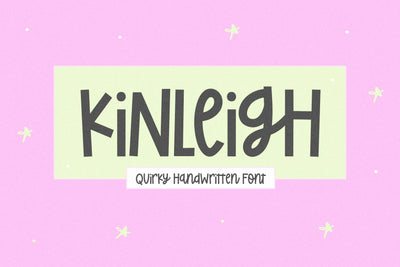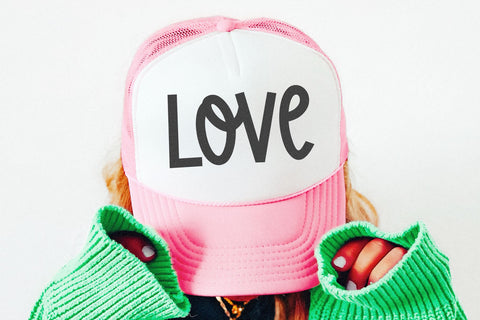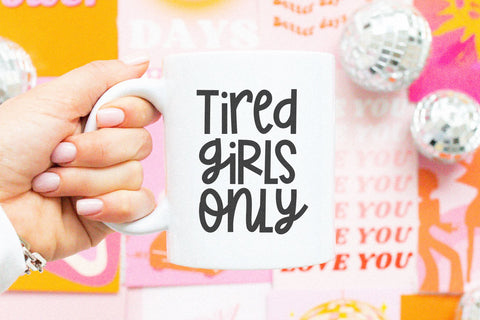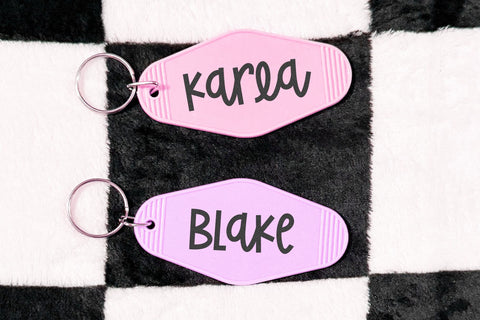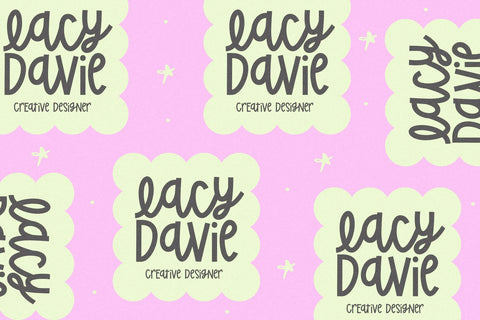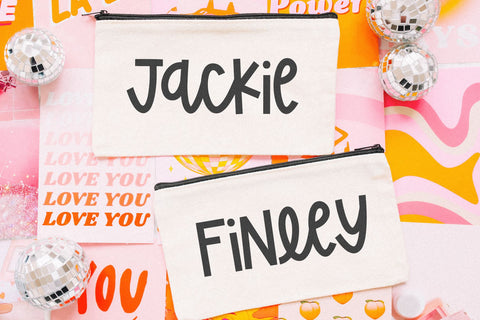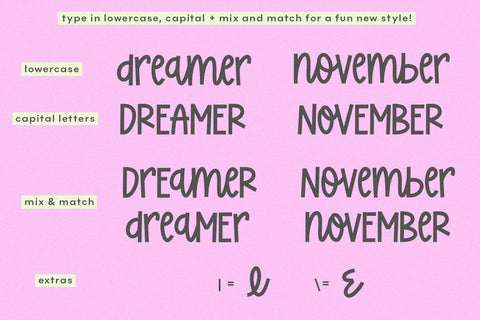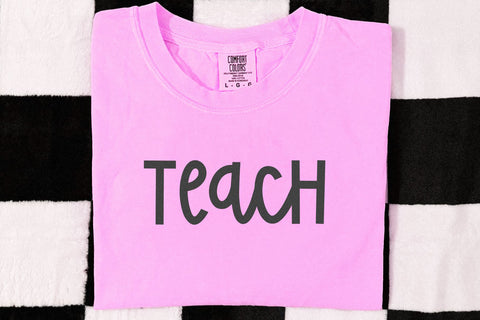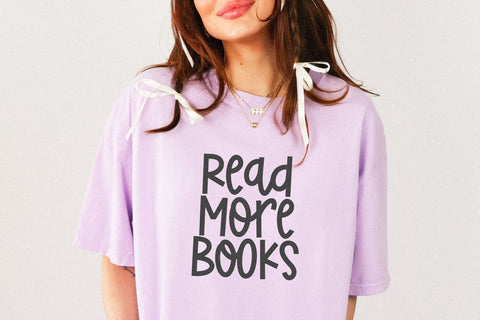
Kinleigh - Cute Handwritten Font
Kinleigh is a cute and quirky handwritten font.
This font is perfect for logos, cricut projects, shirts, svg files, canva, goodnotes, lasers, teachers and more!